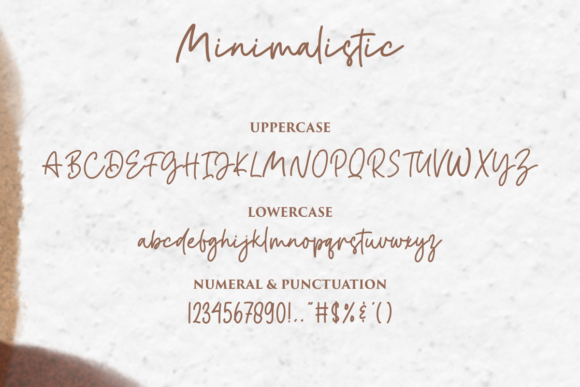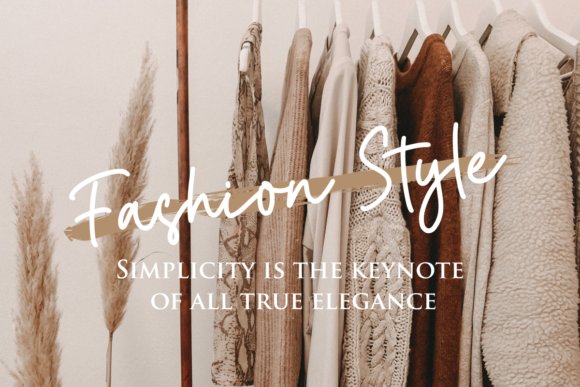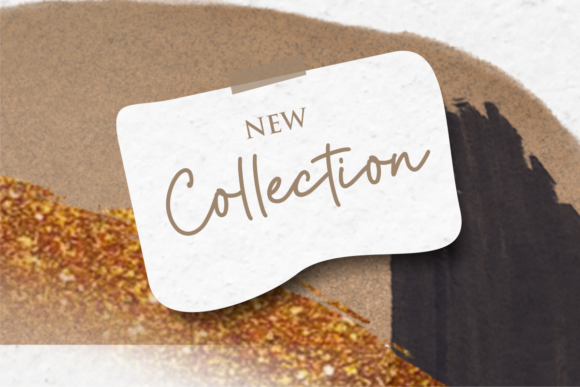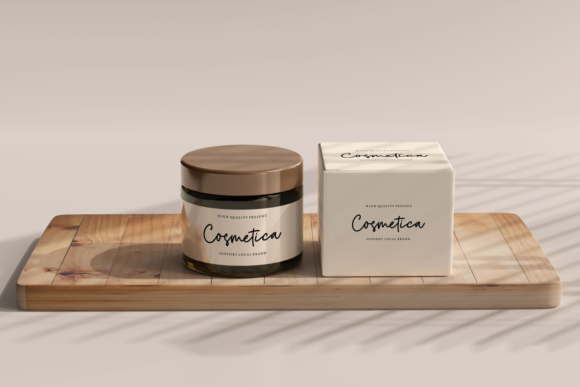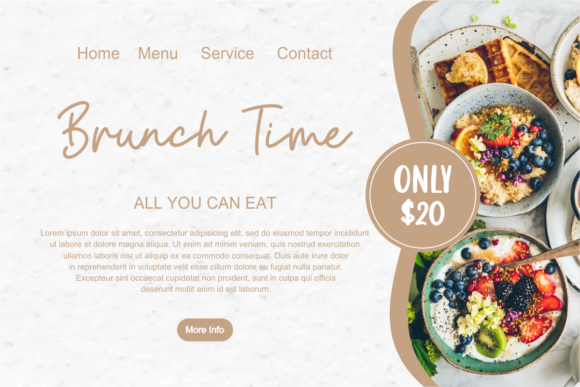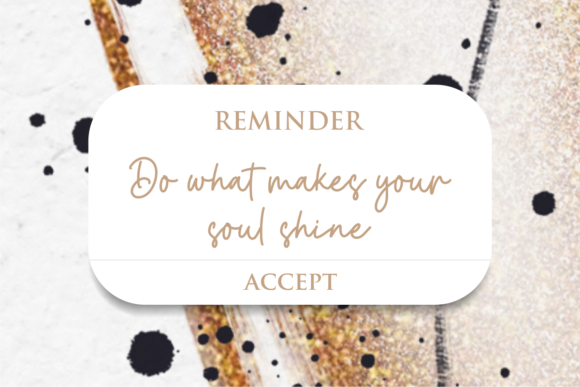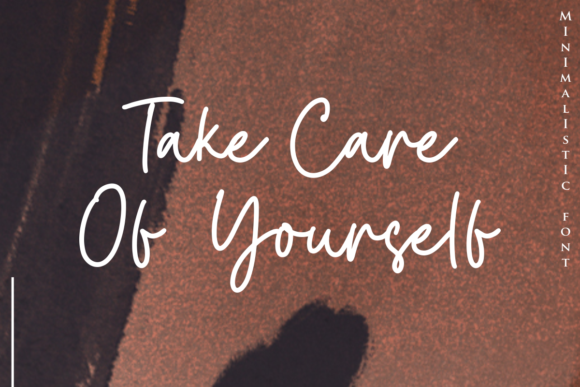
About Minimalistic Font
Minimalistic is a relaxed, stylish, and delicate script font that adds a touch of elegance and sophistication to any design. With its clean lines and balanced letterforms, this font is a wonderful asset to your font library, enhancing the overall look and feel of your creations.
The relaxed and stylish nature of Minimalistic sets it apart and creates a sense of calm and simplicity in your designs. The font’s delicate and refined strokes create a visually appealing composition that exudes elegance. It adds a touch of sophistication and modernity, making your creations visually captivating and memorable.
Minimalistic’s versatility makes it suitable for a wide range of topics and design applications. Whether you’re working on branding materials, wedding invitations, packaging, editorial designs, or any other creative project, this font adapts seamlessly to different contexts. Its clean and balanced style enhances the overall aesthetic and brings a sense of harmony to your designs.
By incorporating Minimalistic into your designs, you infuse them with a sense of elegance and simplicity. The font’s relaxed and delicate script style adds a touch of sophistication that enhances the overall appeal of your creations. Embrace the versatility of Minimalistic, and notice how it enhances the look of your designs, making them visually captivating and memorable.
In summary, Minimalistic is a relaxed, stylish, and delicate script font that adds elegance and sophistication to your designs. Its clean lines and balanced letterforms create a visually appealing composition. Embrace the versatility of Minimalistic, and let it enhance the look of your creations, making them visually captivating and memorable with a touch of simplicity and modernity.